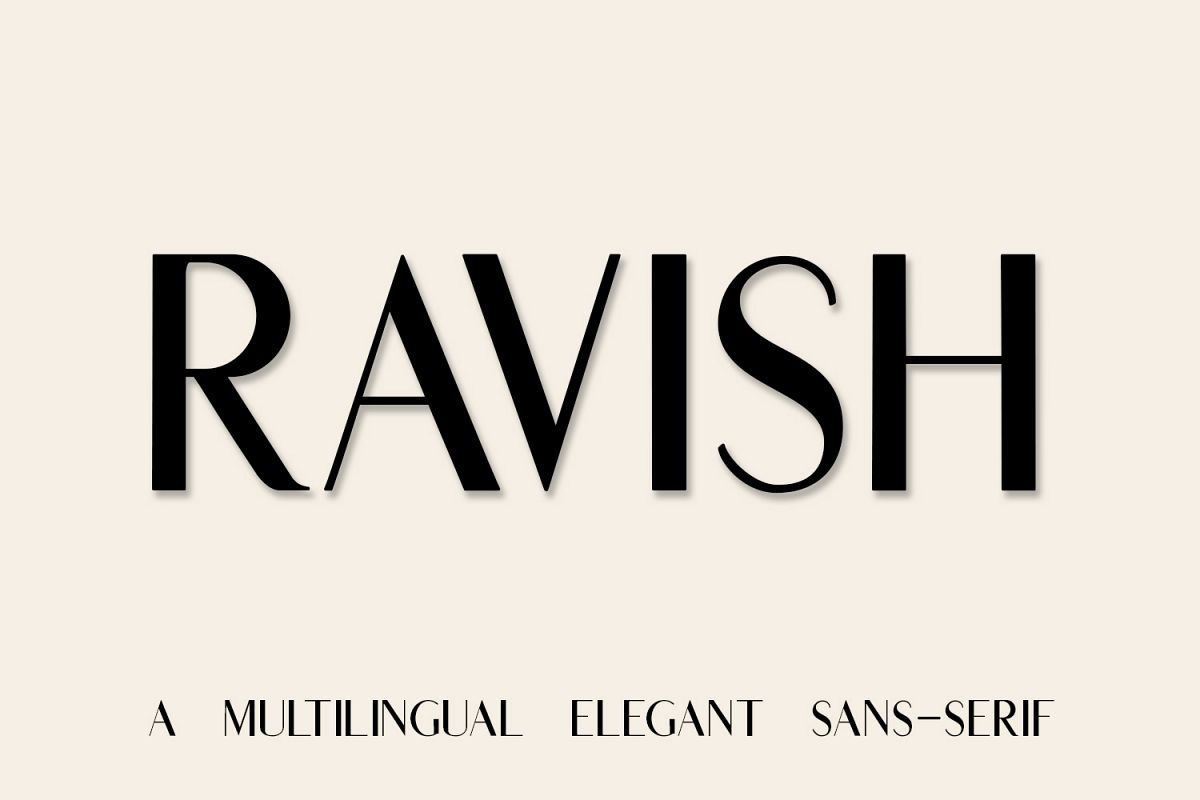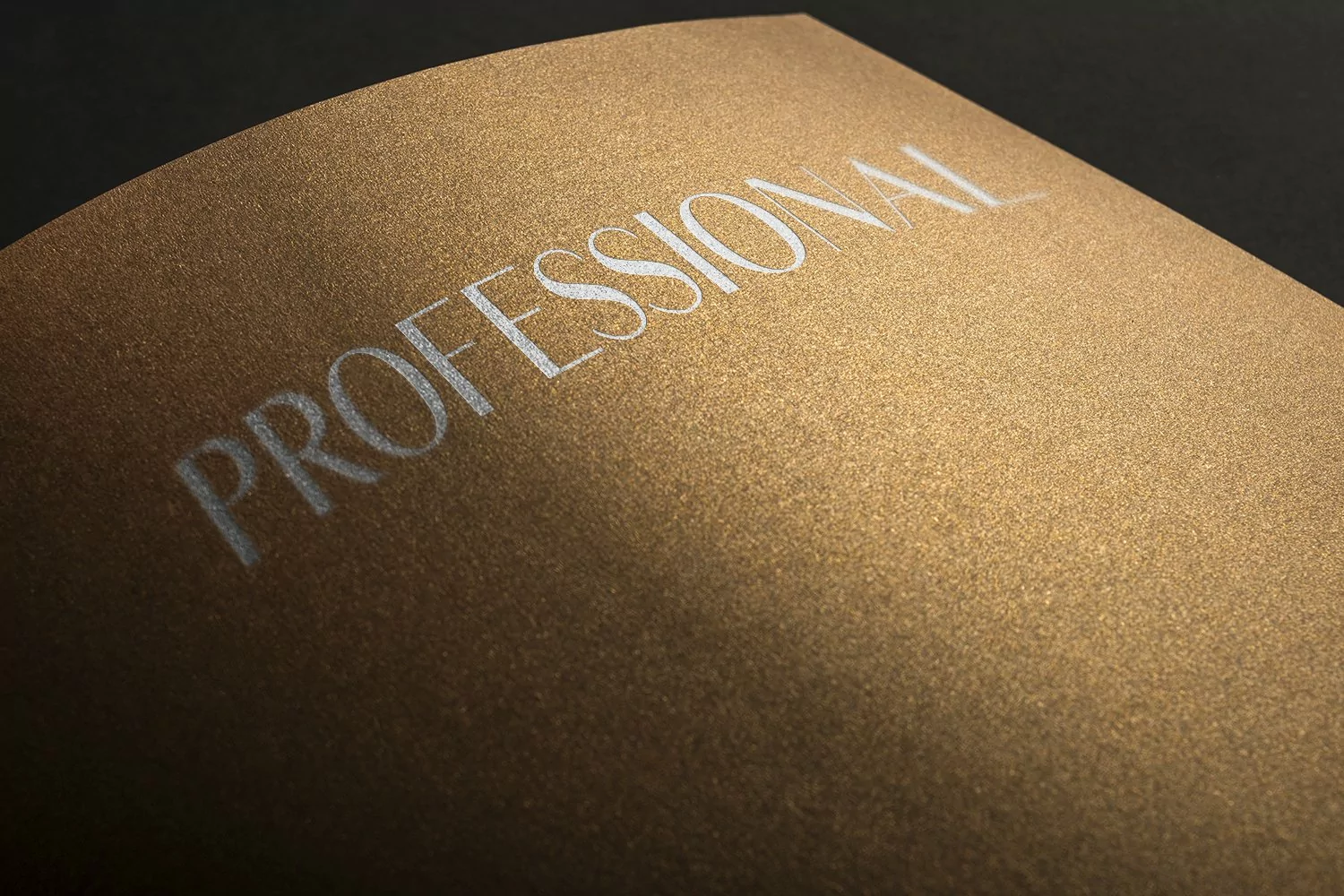
Ravish is an elegant sans-serif that adds a touch of class.
Looks great as a heading font or in branding.
Multilingual, and plenty of punctuation. Includes OTF/TTF/WOFF files.